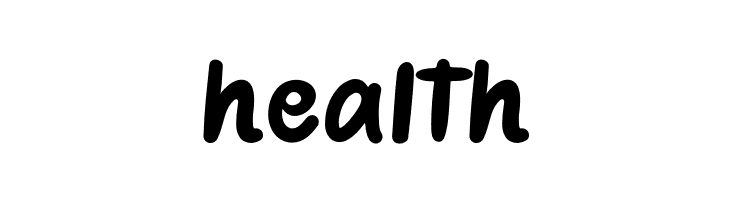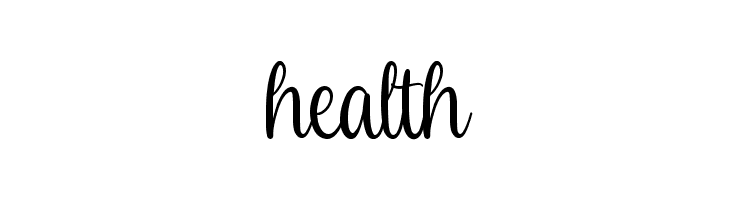
Rainbow Cakes Font
Font by Creavibes Design
A playful, bold font with rounded, thick strokes and a hand-drawn feel.
Jelly Cakes Font
Font by Jonathan S. Harris
A playful, wavy font with a jelly-like texture and bold, rounded characters.
Year supply of fairy cakes Font
Font by Jacob Fisher - www.pizzadude.dk
A bold, handwritten font with a playful and dynamic style.
BROWNIS CAKES Font
Font by K_IN Studio
A playful, bold handwritten font with rounded edges and a casual style.
Bitch Cakes Font
Font by Peter Stanton
A bold, expressive handwritten font with playful strokes.
White Cakes Font
Font by Balpirick Studio
A playful, handwritten font with smooth, rounded edges and a friendly appearance.
Goodness Cakes Demo Font
A playful, handwritten script font with bold, expressive characters.
Starry Cakes Font
A playful, whimsical font with tall, narrow letters and a slight slant.
Oleander Cakes Outline Italic Font
Font by Marchtwentype Studio
A playful, italic outline font with bold, rounded characters.
Oleander Cakes Font
Font by Marchtwentype Studio
A bold, playful handwritten font with rounded edges and thick strokes.
Oleander Cakes Outline Font
Font by Marchtwentype Studio
A playful, hand-drawn outline font with bold, rounded characters.
Peach Cakes Font
Font by Aestherica Studio
A playful, casual handwritten font with fluid, slightly irregular strokes.
Oleander Cakes Italic Font
Font by Marchtwentype Studio
A bold, italicized handwritten font with a playful and dynamic style.
Choco Cakes Font
A playful, handwritten font with smooth, rounded edges and a casual style.
Browny Cakes Signature Font
Font by Fontherapy | Kalifont Studio
A handwritten, casual script font with a playful and informal style.
Hot Cakes Font
A bold, brush-style font with a hand-painted, artistic appearance.
Year supply of fairy cakes Font
A bold, dynamic handwritten font with lively, irregular strokes.